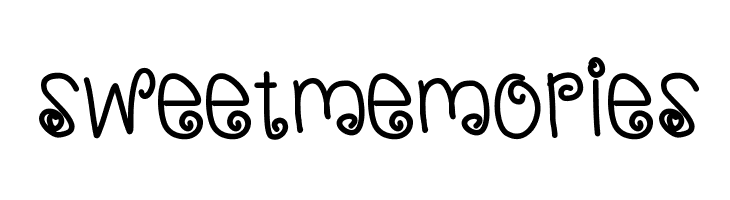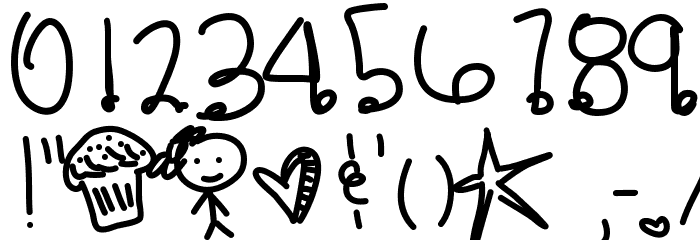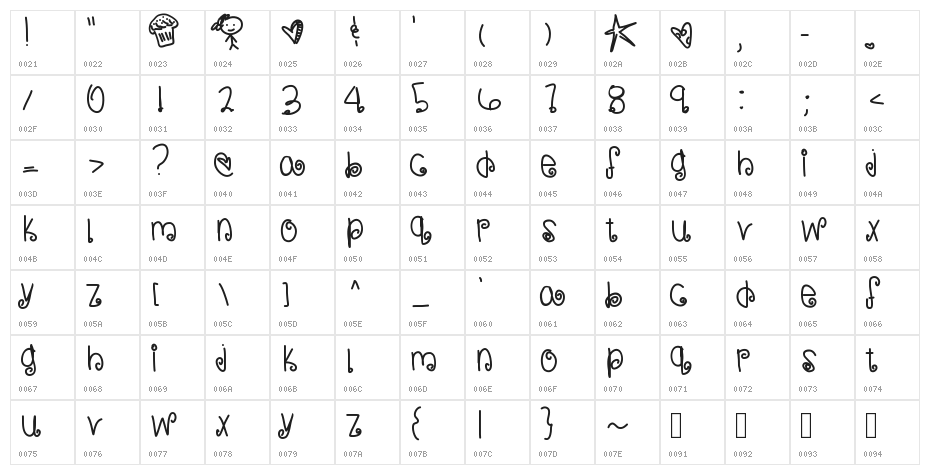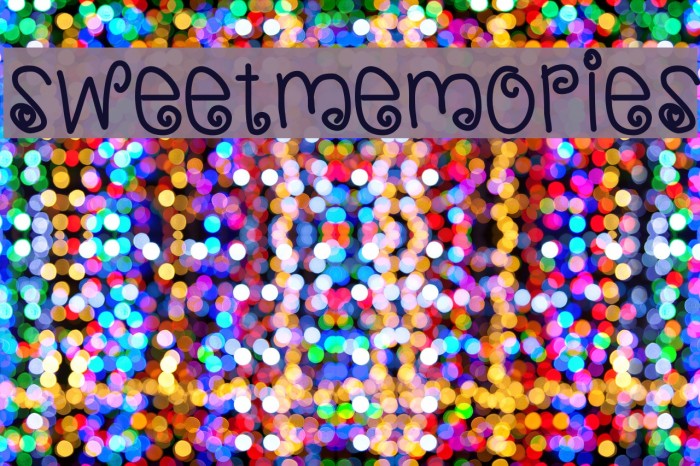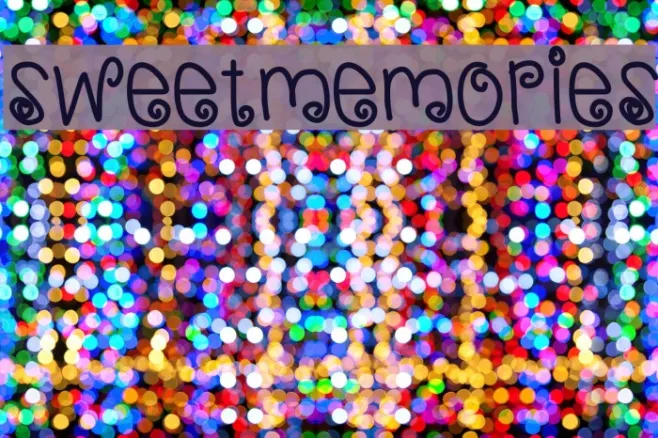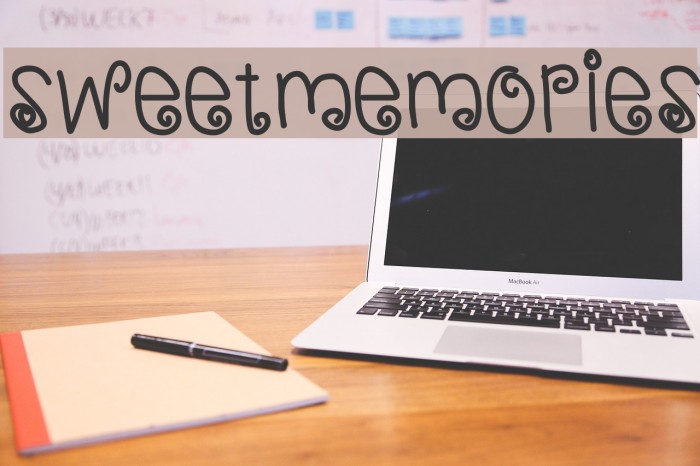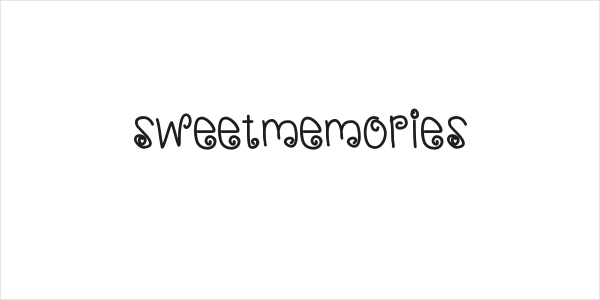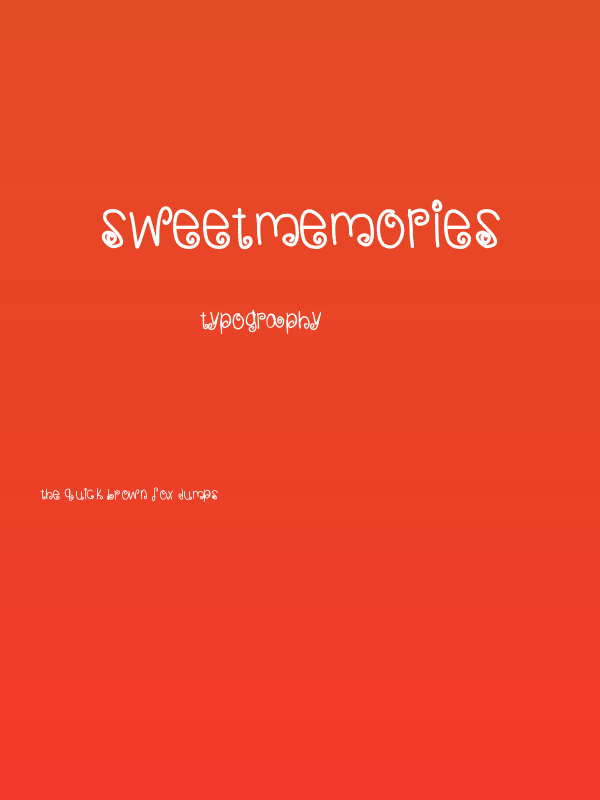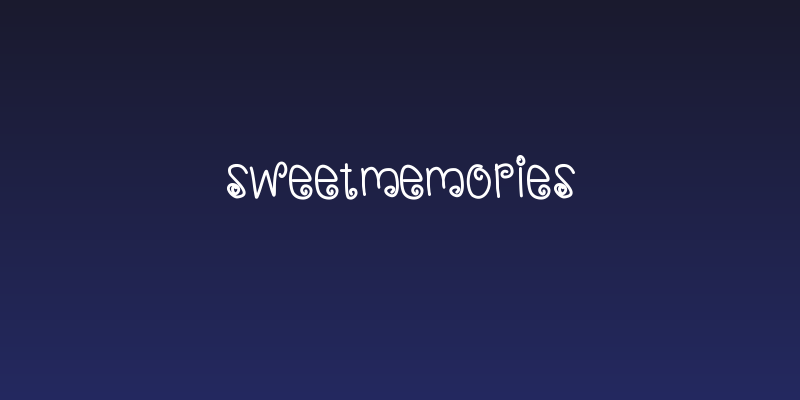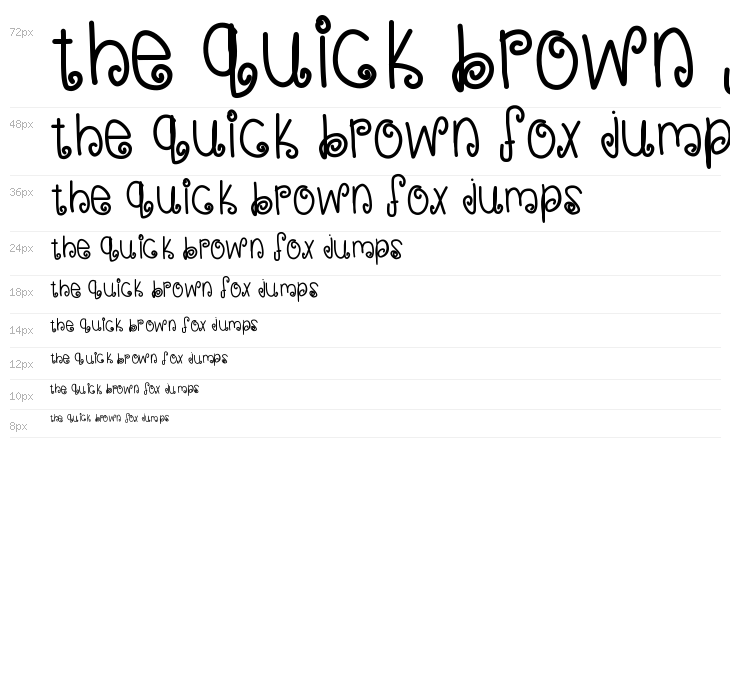
SweetMemories Font
SweetMemories Description
This playful and whimsical font features a handwritten style with curly and looping elements that give it a fun and lively appearance. The characters are bold and rounded, with a consistent stroke width that maintains a uniform look throughout. The font includes both uppercase and lowercase letters, numbers, and a variety of special characters, each designed with a unique flair. The overall design is reminiscent of doodles or children's handwriting, making it ideal for projects that require a touch of creativity and joy. Its informal and friendly style makes it suitable for invitations, greeting cards, children's books, and playful branding.
| Overall Style | Whimsical |
| Use Case | Invitations, Greeting cards, Children's books |
| Proposed Projects | Ideal for children's books, playful branding, invitations, and greeting cards. |